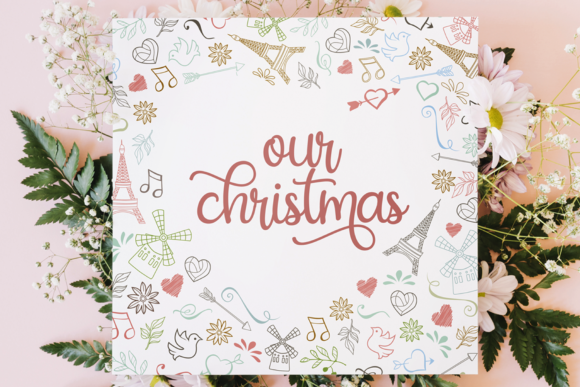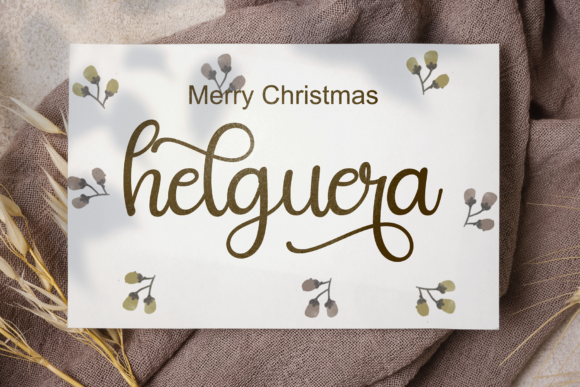
Christday Font
db-ku.com - Script & Handwritten -- Christday is a beautiful, romantic and rich handwritten font. This font is PUA encoded which means you can access all of the glyphs and swashes with ease!